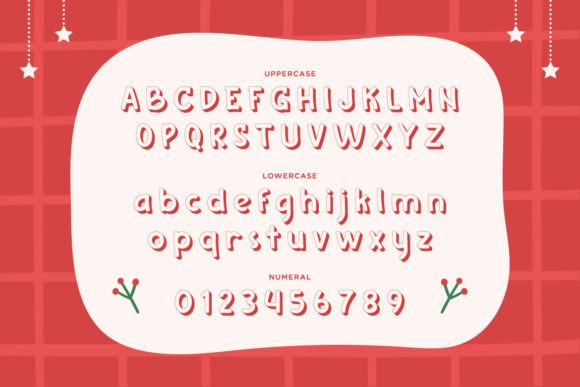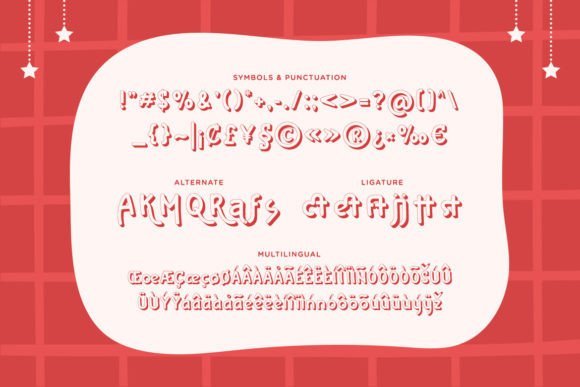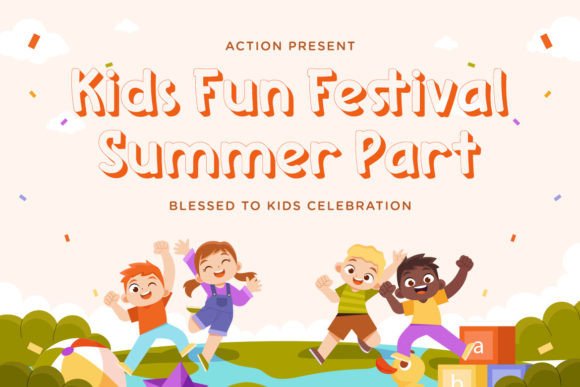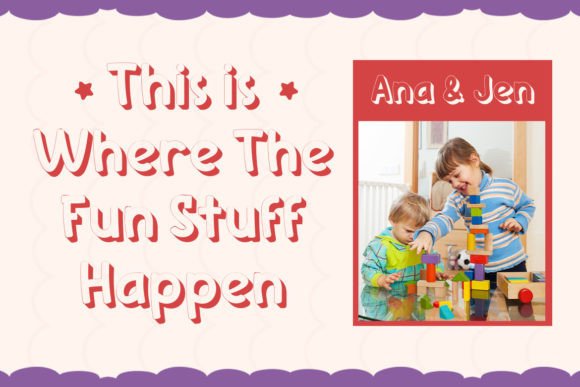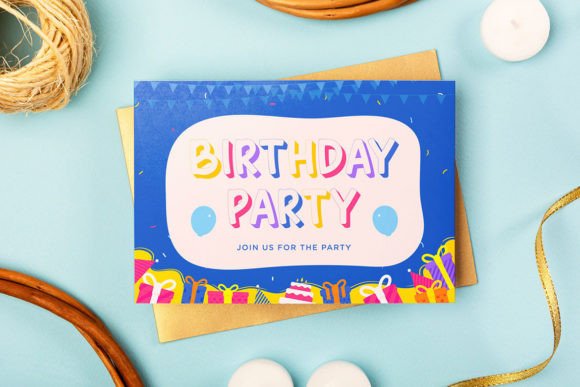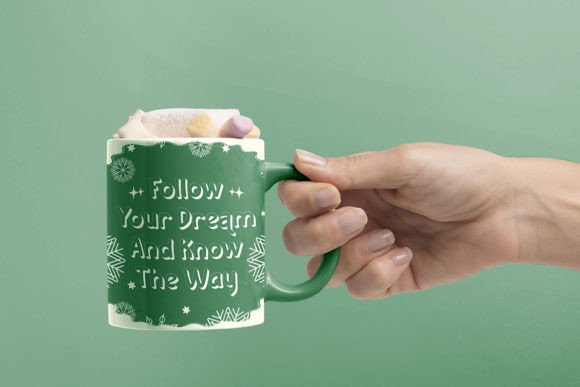
Introduction to Kinder Minders Font
As designers, we’ve all been there – staring at a blank canvas, trying to find the perfect font to bring our creative project to life. Sometimes, it’s not just about choosing a font, but about finding a character that speaks to our vision. That’s exactly what the Kinder Minders Font does – it adds a playful touch to any design, making it stand out from the crowd.
Imagine a font that’s not just a tool, but a design resource that inspires creativity and sets the tone for a high-quality project. The Kinder Minders Font is that and more – a free download that offers a transparent background, making it easy to integrate into any design.
For designers, the Kinder Minders Font is a valuable addition to any toolkit, offering a unique style that’s sure to elevate any creative project. In this article, we’ll dive deeper into the world of Kinder Minders Font, exploring its features and how it can be used to create truly standout designs.
Key Features of Kinder Minders Font
- High-quality design: Kinder Minders Font offers a unique and creative design perfect for various projects, including educational materials, children’s books, and more.
- Transparent background: The Kinder Minders Font features a transparent background, allowing for easy customization and layering in creative projects.
- High-resolution design: Kinder Minders Font is designed at a high resolution (300 DPI), making it suitable for print and digital applications.
- Unique characteristics: This font features a playful and whimsical design, with a mix of uppercase and lowercase letters that add a touch of personality to any project.
- Perfect for creative projects: Kinder Minders Font is ideal for designers working on children’s educational materials, posters, flyers, and other creative projects that require a fun and engaging design.
Honest Review: Kinder Minders Font
As a designer, I’m always on the lookout for high-quality design resources to elevate my creative projects. Recently, I stumbled upon the Kinder Minders Font, and I must say, it’s been a game-changer for my designs. ✨
The Kinder Minders Font offers a clean, modern aesthetic that’s perfect for various design applications, from logos and branding to digital products and print materials. The font’s versatility and legibility make it an excellent addition to any design library.
- High-quality design with a transparent background, making it easy to integrate into various design projects.
However, I do have a few minor criticisms. ⚠️
- Limitations:
- The font’s limited character set may require additional fonts to be paired with it for more extensive design projects.
Overall, I’m impressed with the Kinder Minders Font’s quality and design versatility. It’s a great addition to any design library, and I’d highly recommend it for any creative project that requires a modern, clean aesthetic.
How to Use Kinder Minders Font
The Kinder Minders Font is a high-quality, free download design resource ideal for creative projects. With its unique and playful style, it’s perfect for adding a touch of personality to your designs.
Use the Kinder Minders Font with a transparent background to add a touch of whimsy to your designs.
Experiment with different font sizes and colors to create a unique and eye-catching look.
The Kinder Minders Font is perfect for:
- Children’s book illustrations
- Party invitations and decorations